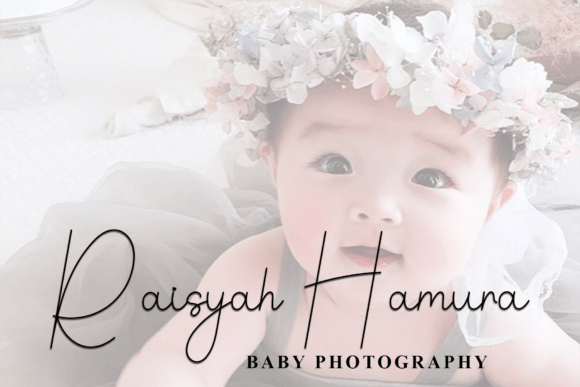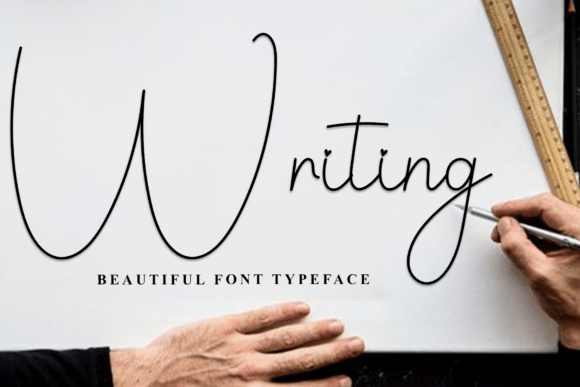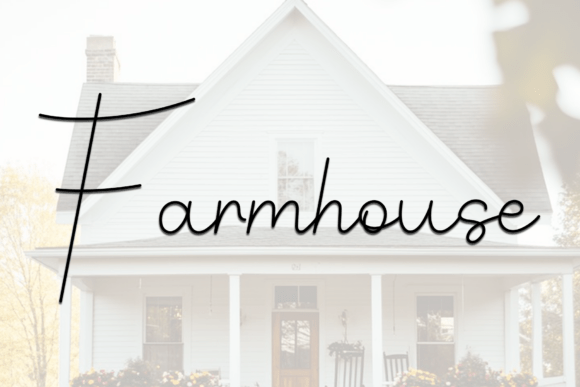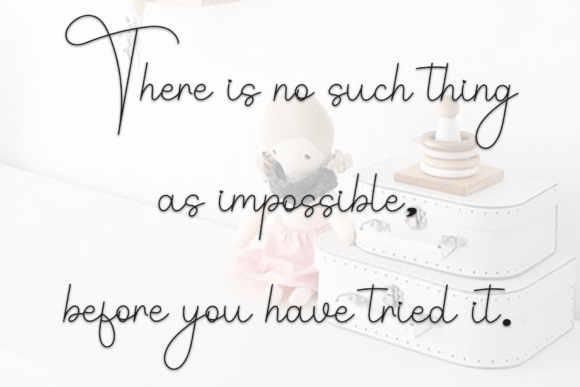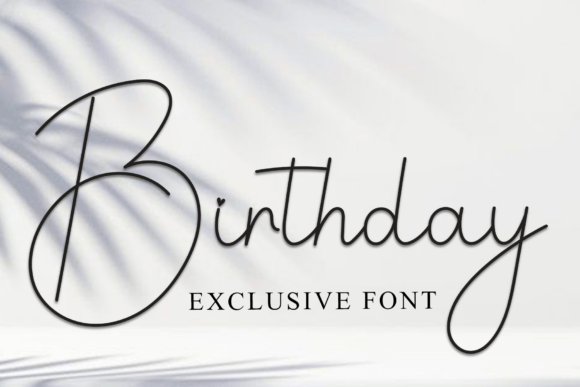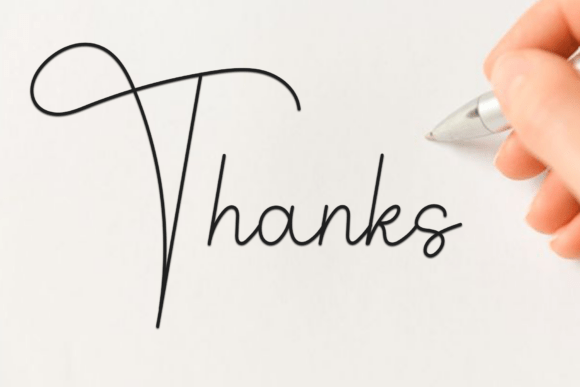
The Perfect Balance of Elegance and Minimalism
Have you ever stared at a beautiful typography piece and felt a rush of inspiration? For many designers, it’s a moment that sparks creativity and sets the tone for an entire project. It’s a feeling that can be triggered by the simplest of elements – a single letter, a delicate stroke, or a perfectly crafted line. For those who crave a more refined aesthetic, the Alphabet Font is a game-changer.
This stunningly tall and thin monolinear script is the epitome of “less is more,” offering an airy, ethereal feel on the page. Whether you’re working on high-fashion photography, luxury wedding invitations, or modern architectural branding, the Alphabet Font is the perfect choice to elevate your designs. Its value lies in its versatility and the unique look it brings to any project, making it a must-have for designers who want to achieve a “quiet luxury” aesthetic.
Key Features of Alphabet Font
- Unique Characteristics: Alphabet Font features a unique, hand-drawn design with subtle irregularities, giving it a personal and artistic feel.
Alphabet Font Review
I recently had the chance to work with the Alphabet Font, and I have mixed feelings about it. Here’s a breakdown of what I think:
- Unique and playful style – The Alphabet Font is a fun and quirky addition to any design project.
- Clear and legible – Despite its whimsical appearance, the font is surprisingly easy to read.
- Good for children’s materials – The Alphabet Font is a great choice for kids’ books, educational materials, or any project that requires a friendly and approachable tone.
- Limited versatility – The Alphabet Font is best suited for informal or playful projects and may not be suitable for more formal or professional designs.
- Not ideal for long blocks of text – The font’s playful style can make it difficult to read large amounts of text, which may limit its use in longer documents.
- May not be suitable for all audiences – The Alphabet Font’s whimsical style may not be suitable for all cultures or age groups, so be sure to consider your audience before using it.
Overall, I think the Alphabet Font is a great choice for the right project. While it may have some limitations, its unique style and clear legibility make it a fun and effective addition to any design.
For the most out of Alphabet Font in Canva, use it for titles and headings to add a playful touch to your designs.
For best results, use Alphabet Font for illustrations and graphics that require a whimsical feel.
Use Alphabet Font in PowerPoint or Word for titles, headings, and other text elements that require a playful touch.
Alphabet Font is perfect for:
- Children’s books and educational materials.
- Party invitations and decorations.
- Whimsical illustrations and graphics.